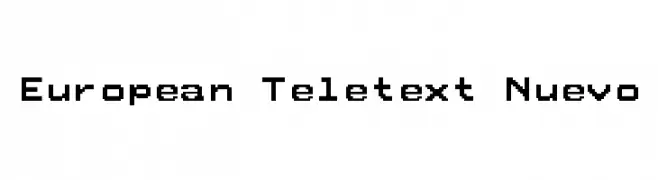
A retro, pixelated font with a blocky, geometric design.
A pixelated, monospaced font with a retro digital aesthetic.
A pixelated, blocky font inspired by retro digital displays.
A bold, geometric font with sharp angles and a futuristic style.
A bold, pixelated font with a retro digital aesthetic.
A pixelated, retro-style font with a blocky, digital appearance.
A pixelated, monospaced font with a retro digital style.
A pixelated, retro-style font with a blocky, digital aesthetic.
A bold, pixelated font inspired by classic video game graphics.
A bold, pixelated font inspired by classic 8-bit video games.